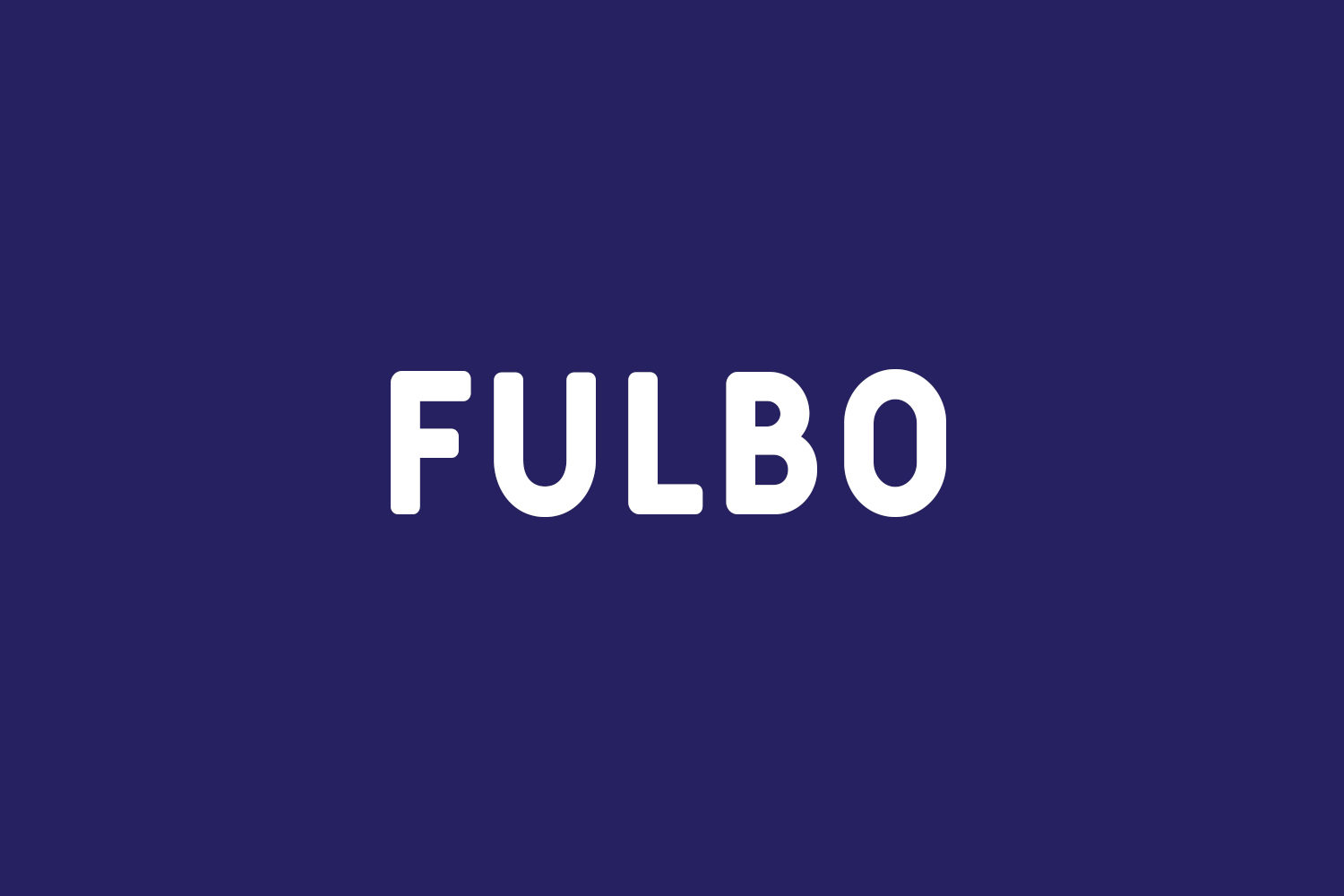
From the football pitch direct to your designs. Fulbo Free Font Family was created to maximize visibility of the numbers when the jersey is in action. Boost your creativity with the five styles of Fulbo Font. Design by Alejo Bergmann & Emmanuel Baldor, both from Rostype Fonts.
Designed by Alejo Bergmann
Fulbo Argenta The quick brown fox jumps over the lazy dog
Fulbo Champagne The quick brown fox jumps over the lazy dog
Fulbo Retro The quick brown fox jumps over the lazy dog
Fulbo Premier The quick brown fox jumps over the lazy dog
Fulbo Tano The quick brown fox jumps over the lazy dog